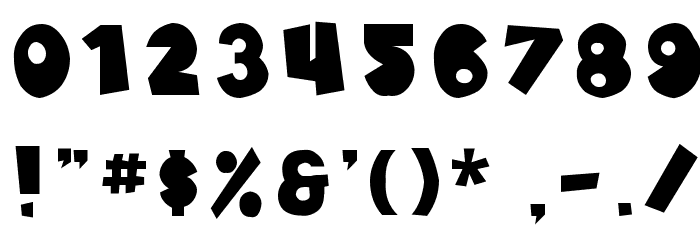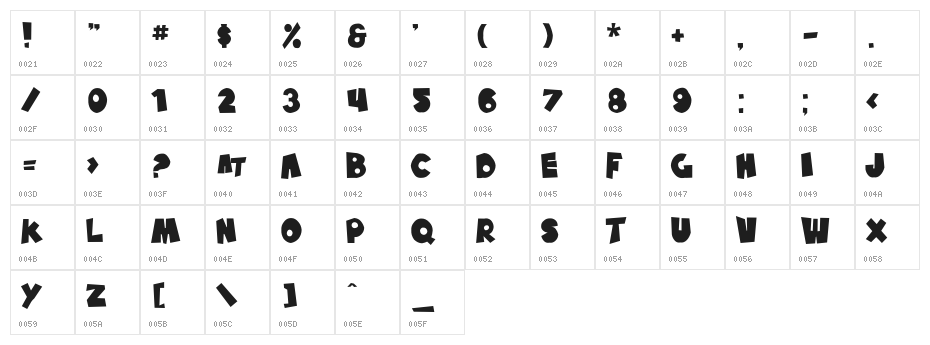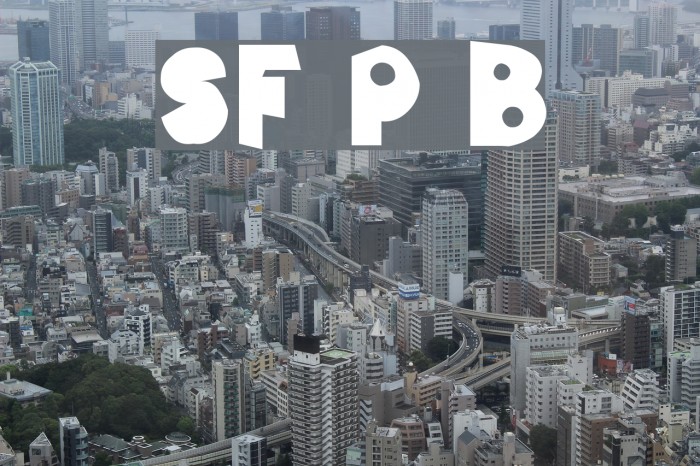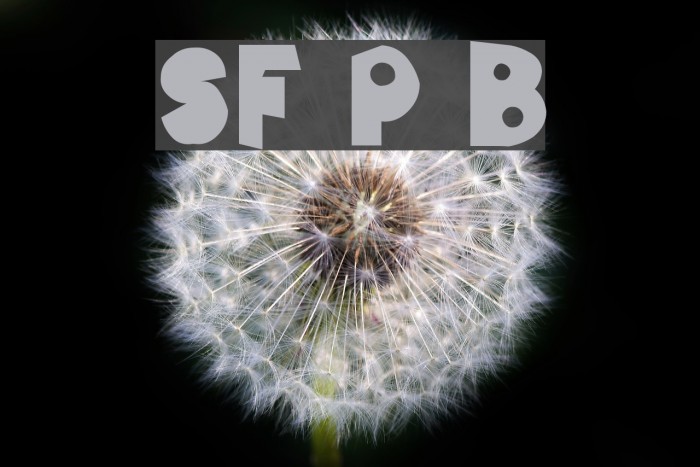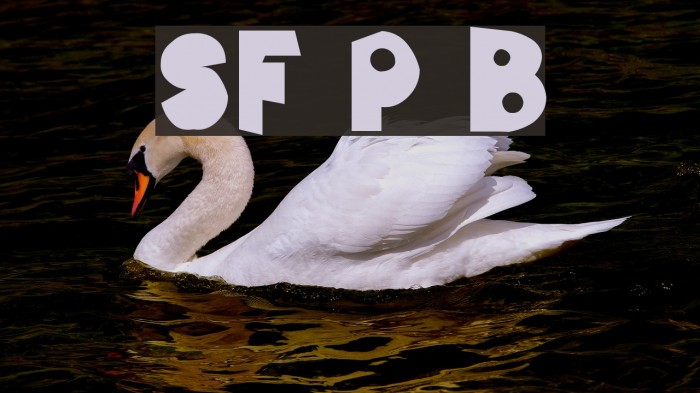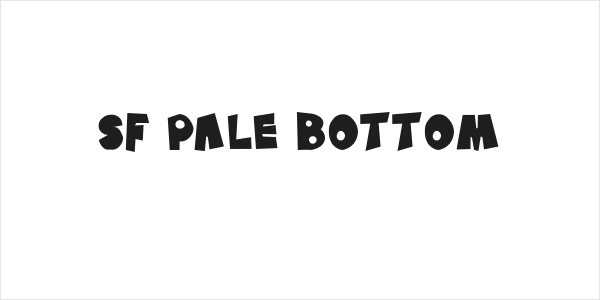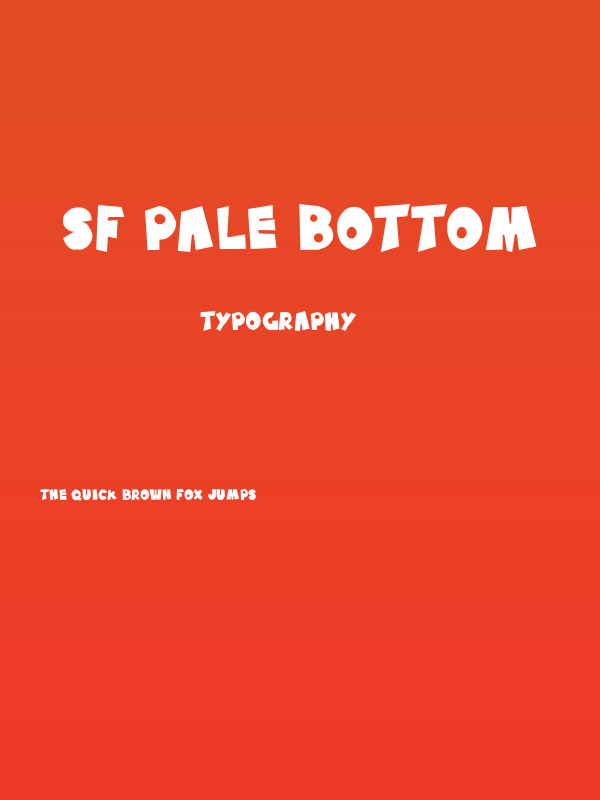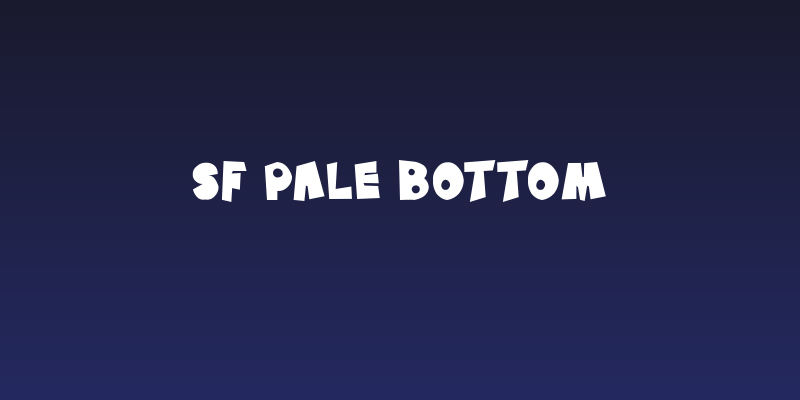
SF Pale Bottom Font
SF Pale Bottom Description
This font features a bold and playful design with exaggerated, uneven strokes that create a whimsical and dynamic appearance. The characters are heavily stylized, with a distinct bottom-heavy look, giving them a unique and eye-catching presence. The uppercase and lowercase letters maintain a consistent style, while the numbers and special characters follow suit with the same bold and quirky aesthetic. The font's overall appearance is reminiscent of hand-cut paper or playful cartoon lettering, making it ideal for projects that require a fun and informal touch.
| Proposed Projects | Ideal for children's books, playful branding, party invitations, and cartoon-themed projects. |